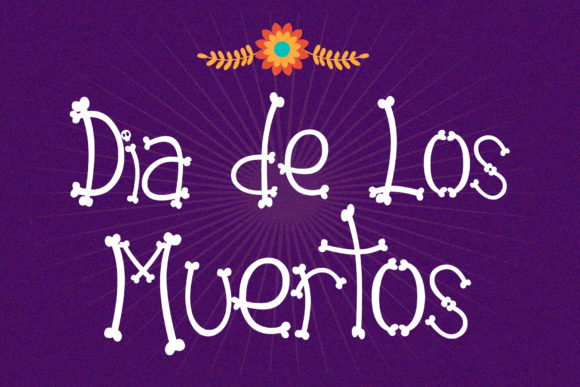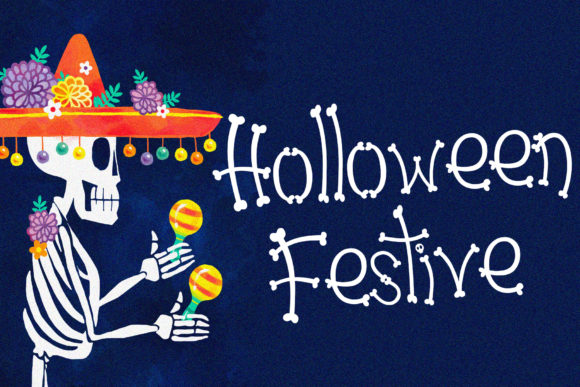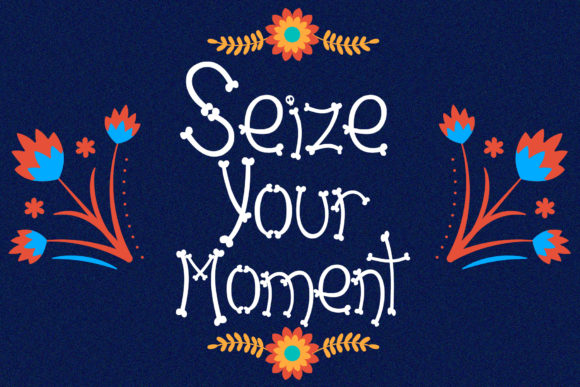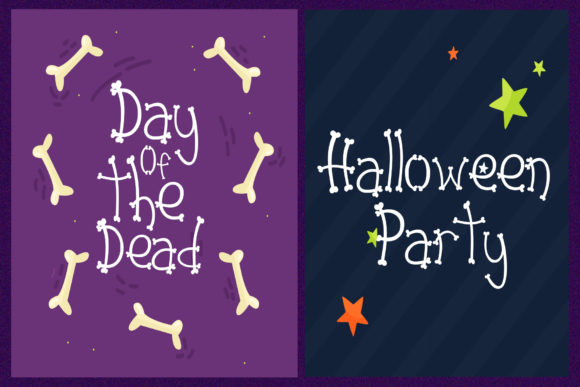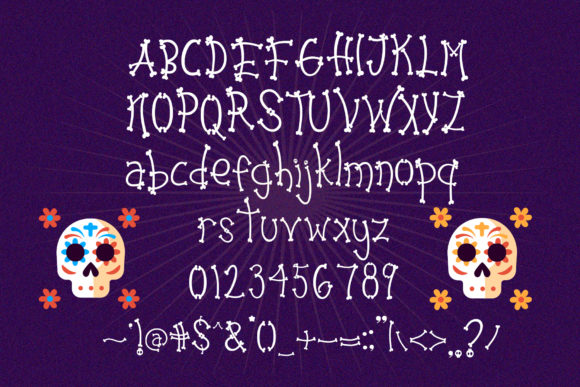
Unleash the Spooky Spirit with Dead Skull Font
Are you ready to add a touch of eeriness to your designs? Look no further than the Dead Skull Font, a unique and captivating typeface that’s perfect for Dia de los muertos and Halloween projects. With its letters consisting of bare bones, Dead Skull celebrates all things scary, making it an ideal choice for designers and crafters who want to create spooky and memorable designs.
The Inspiration Behind Dead Skull Font
The Dead Skull Font is inspired by the traditional Mexican holiday, Dia de los muertos (Day of the Dead), which honors the deceased. The font’s design is rooted in the symbolism of the holiday, featuring skeletal letters that evoke the spirit of the celebration. The font’s creator aimed to capture the essence of the holiday’s mix of somber and festive atmosphere, resulting in a typeface that’s both haunting and beautiful.
Key Features of Dead Skull Font
- Bone-Chilling Design: The Dead Skull Font features letters made up of bare bones, creating a spooky and eye-catching effect.
- Unique Letterforms: Each letter in the font is carefully crafted to resemble skeletal remains, making it perfect for Halloween and Dia de los muertos projects.
Using Dead Skull Font in Your Designs
The Dead Skull Font is versatile and can be used in a variety of design projects, including:
- Halloween and Dia de los muertos Invitations: Create spooky and festive invitations that set the tone for your party or celebration.
- T-Shirts and Apparel: Add a touch of eeriness to your t-shirts, hoodies, and other apparel with the Dead Skull Font.
- Signs and Posters: Use the font to create eye-catching signs and posters for your Halloween or Dia de los muertos event.
- Digital Art and Illustrations: Incorporate the Dead Skull Font into your digital art and illustrations to add a spooky touch.
Tips and Tricks for Working with Dead Skull Font